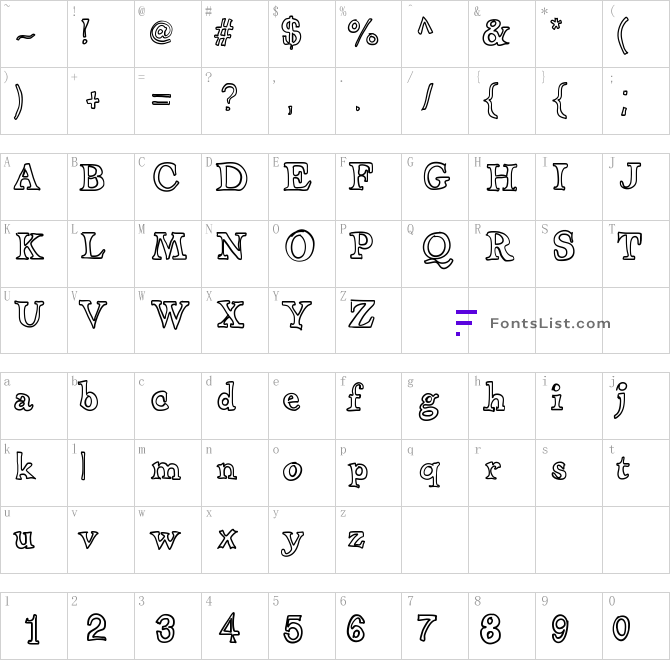
- Font Name:ApothecaryFont
ApothecaryFont.ttf is a very beautiful artistic font, ApothecaryFont.ttf is widely used in the design and printing of various books and pictures,ApothecaryFont.ttf has a strong visual impact,ApothecaryFont.ttf is a commonly used font in newspapers, magazines and books, and is used in posters, e-commerce Poster design, store design, logo design, font design and other fields.ApothecaryFont.